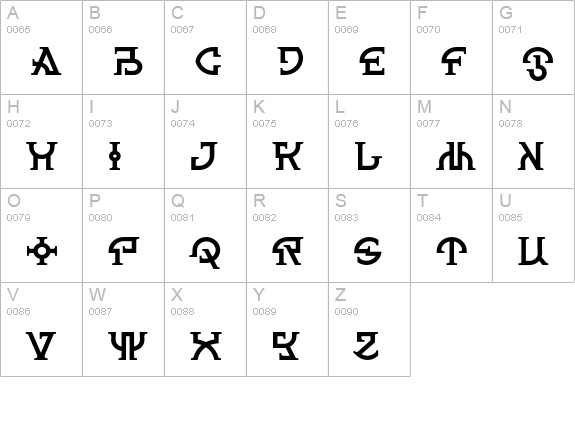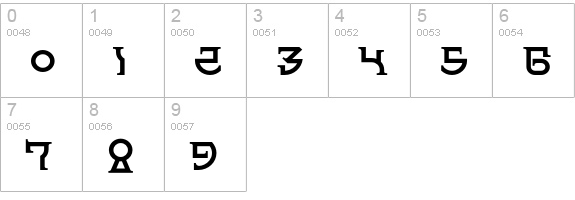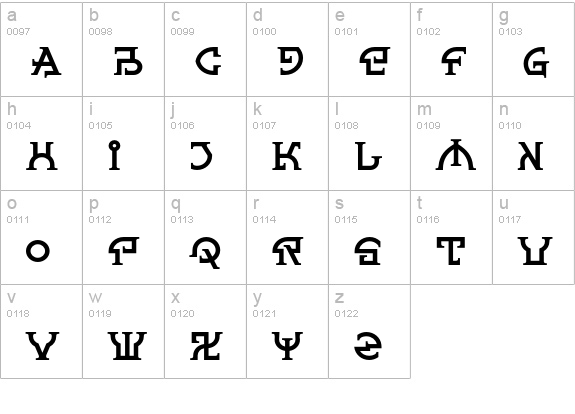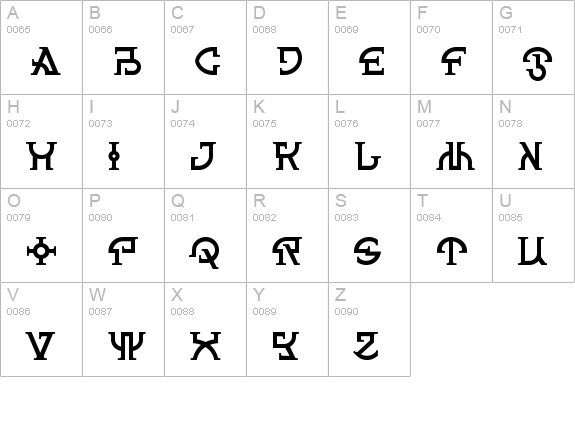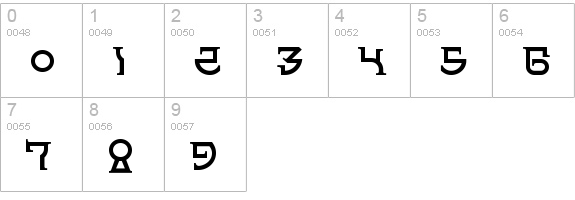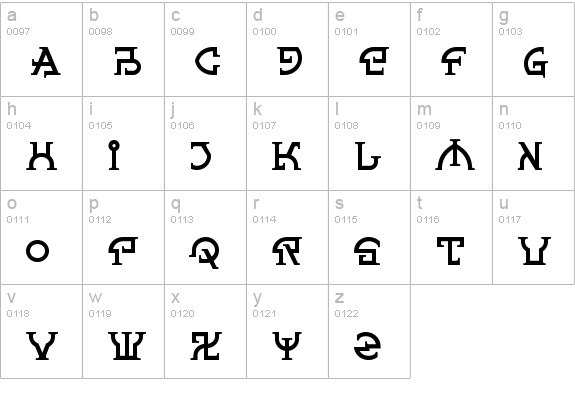
Spanner-CGauge Font Details
Spanner-CGauge font is a visually stunning and versatile typeface that is sure to make a lasting impression on any design project. With its unique combination of bold lines and intricate shapes, this font is perfect for adding a touch of sophistication and elegance to your work. The clean and crisp letterforms of Spanner-CGauge font make it easily readable at any size, while its attention-grabbing design elements ensure that your text will stand out from the crowd. Whether you're designing a logo, creating a poster, or crafting a website, this font is a perfect choice for adding a touch of professional polish. What sets Spanner-CGauge font apart is not only its impeccable design, but also the fact that it is freely available to download at FontsMarket.com. This means that you can add this high-quality font to your collection without breaking the bank. Whether you're a professional designer or a hobbyist, having access to a versatile and visually stunning font like Spanner-CGauge can elevate your work to new heights. So why wait? Download Spanner-CGauge font today and unlock the potential to create truly exceptional designs. With its striking design elements and the freedom to use it without any cost, this font is a must-have for any design enthusiast. Don't miss out on the opportunity to enhance your projects with this outstanding typeface. Visit FontsMarket.com now to download Spanner-CGauge font and start creating captivating designs today.